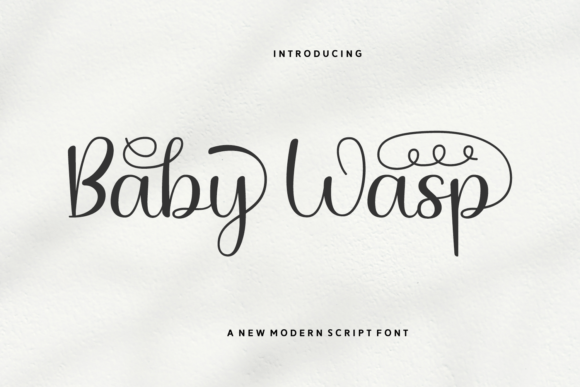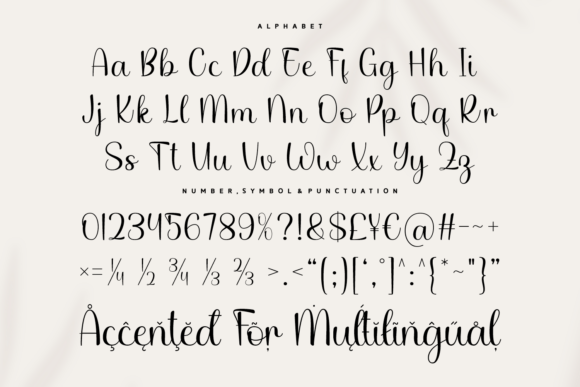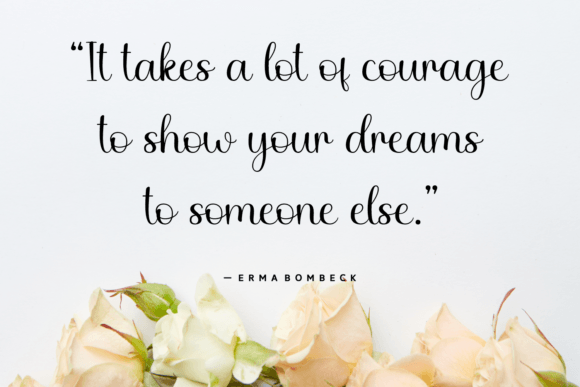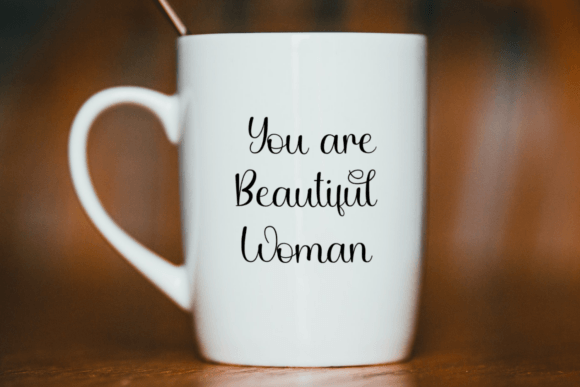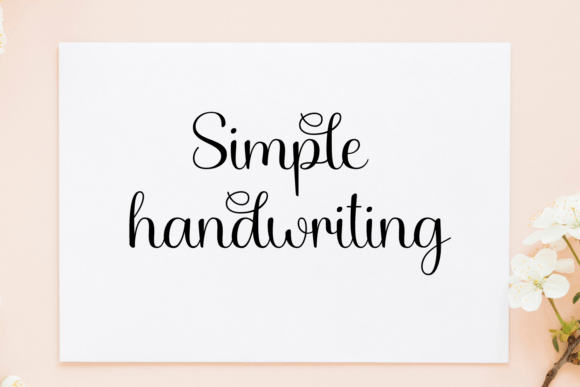
Discover the Sweet Charm of Baby Wasp Font
Have you ever been working on a design project and suddenly, a spark of inspiration hits you? Maybe it’s a quirky illustration, a playful color palette, or a font that perfectly captures the mood of your project. For me, it’s often the latter – a font that can elevate a design from bland to grand. Recently, I stumbled upon the delightful Baby Wasp Font, and I just had to share its magic with you.
This charming script font is designed to bring a smile to your face and a dash of whimsy to your designs. Perfect for fun branding, children’s projects, and greeting cards, Baby Wasp Font is a versatile tool for any designer looking to add a touch of personality to their work. Its unique swashes and playful aesthetic make it a valuable addition to any design arsenal.
Baby Wasp Font Key Features
- Font Family: Baby Wasp is a unique, handwritten font designed to evoke a sense of whimsy and playfulness.
- Unique Characteristics: This font features a range of distinctive flourishes and ornaments, making it ideal for adding a touch of personality to designs.
Baby Wasp Font Review
Overall, I think Baby Wasp Font is a cute and playful font, but it has some limitations that might make it less suitable for certain projects.
- ✨ Unique and quirky design: The font has a distinctive wasp-inspired design that sets it apart from other fonts.
- ✨ Versatile: Baby Wasp Font is suitable for a wide range of projects, from children’s books to greeting cards and social media posts.
- ✨ Easy to read: Despite its playful design, the font is still easy to read, making it a great choice for body text.
- ⚠️ Limited font sizes: Baby Wasp Font doesn’t scale well, making it difficult to use at large or small font sizes.
- ⚠️ Limited line spacing: The font has a fixed line spacing, which can make it difficult to adjust the spacing between lines of text.
- ⚠️ Not suitable for formal projects: The playful design of the font makes it less suitable for formal projects, such as business reports or academic papers.
Overall, I think Baby Wasp Font is a great choice for casual, creative projects, but it may not be the best choice for more formal or complex projects.
Some popular use cases for the Baby Wasp Font include creating playful and whimsical designs for children’s products, branding, and marketing materials. To get the most out of the font, experiment with different font sizes, colors, and combinations to create unique and eye-catching designs.